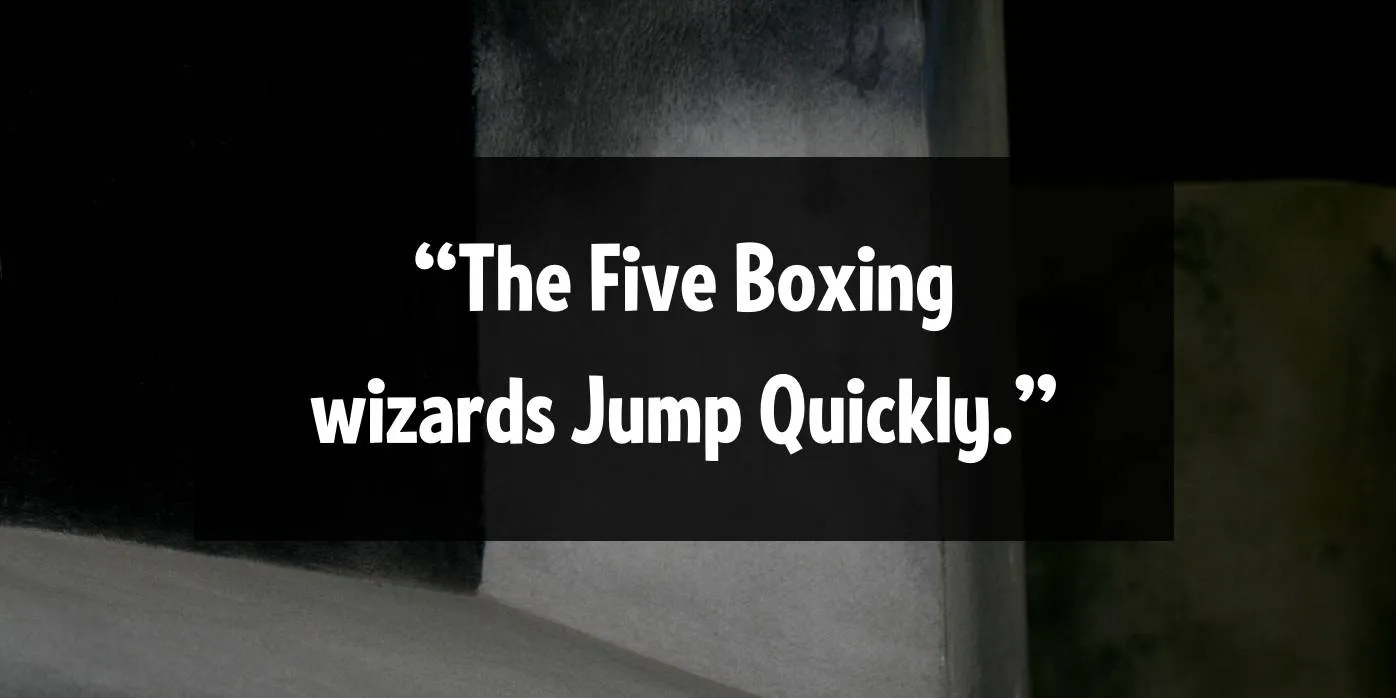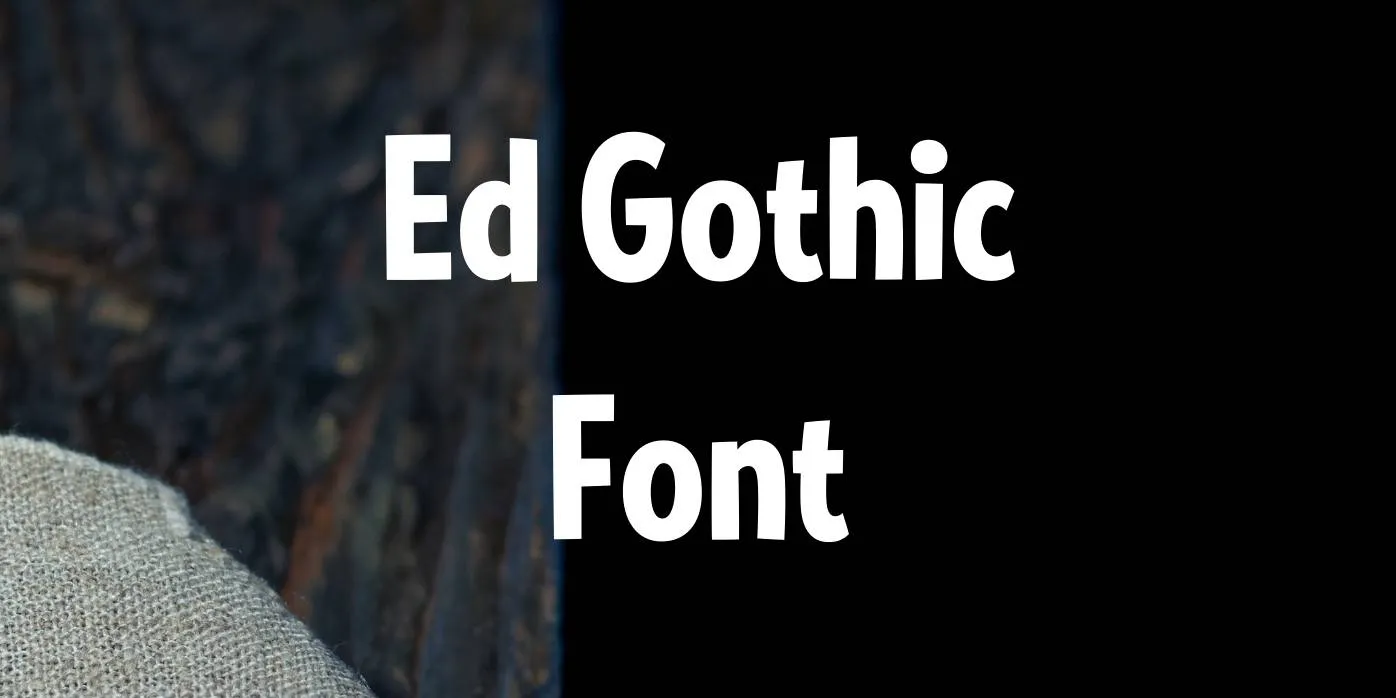
Ed Gothic Font
Today, we present a new stylish and attractive typeface that is best for a lot of different designs named Ed Gothic Font.  This Sans Serif typeface was developed by Darrell Flood. It is perfect for headlines, logos, and much more. It is best specified by the CSS Family. It has a strong foundation with smooth curves.
This classy typeface has almost 2000 special characters including uppercase letters, lowercase letters, numbers, and symbols. It has clean and classic textures that make it perfect for various designs. You will have to use it similar clearview font that has advanced features. This cute font family consists of one strong regular-weight font.
Darrell Flood released this font on January 1st, 2019 via his own website and Creative Fabrica. It is well specified by the SVG. If you are looking for a new Sans Serif typeface for your next design project, consider Ed Gothic font. This typeface provides the facility of a generator tool by which you can create many designs.